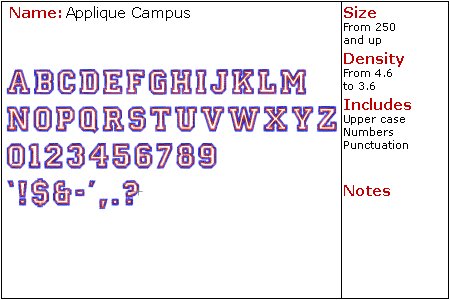
Applique Campus
Pre digitized for Applique Lettering, this font is constructed with a initial running stitch to help you locate the applique material. A running stitch hold down and a 2 color over lock stitch
Style : Vintage